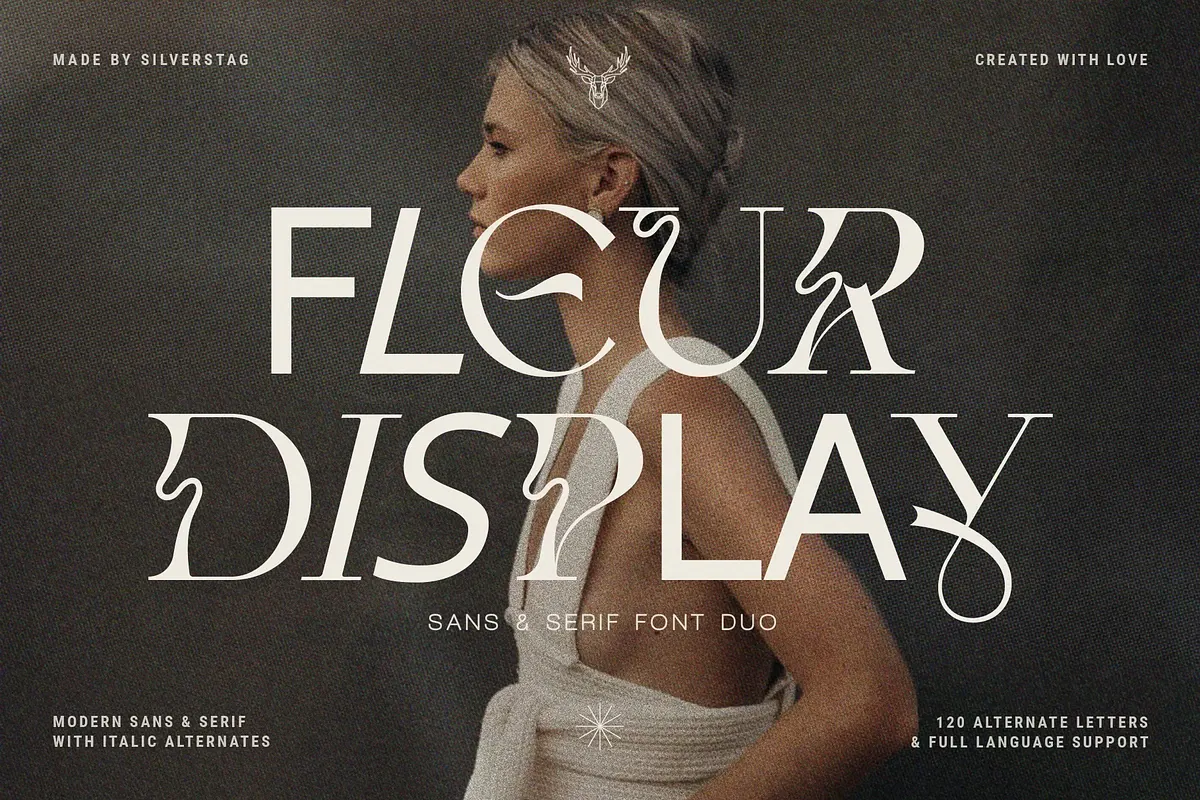
Fleur Display – Sans/Serif Font Duo Free Download is an elegant and versatile typeface pairing that brings together the best of both worlds: modern minimalism and timeless sophistication. Please note: you must purchase this font for commercial use, but you can test it through a free download. With a refined serif for headlines and a clean sans-serif for body text, Fleur is perfect for branding, editorial design, websites, packaging, and wedding stationery.
This perfectly balanced duo allows for seamless hierarchy and visual harmony in your designs. Whether you’re building a luxury brand or crafting a chic social media layout, Fleur Display – Sans/Serif Font Duo Free Download offers flexibility, style, and professionalism. It’s fully compatible with Adobe Illustrator, Photoshop, and Canva—making it a smooth addition to your creative toolkit. Download it now for personal use and elevate your typography with the graceful pairing of Fleur.